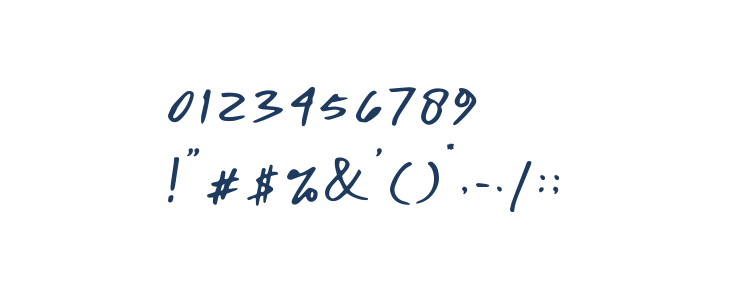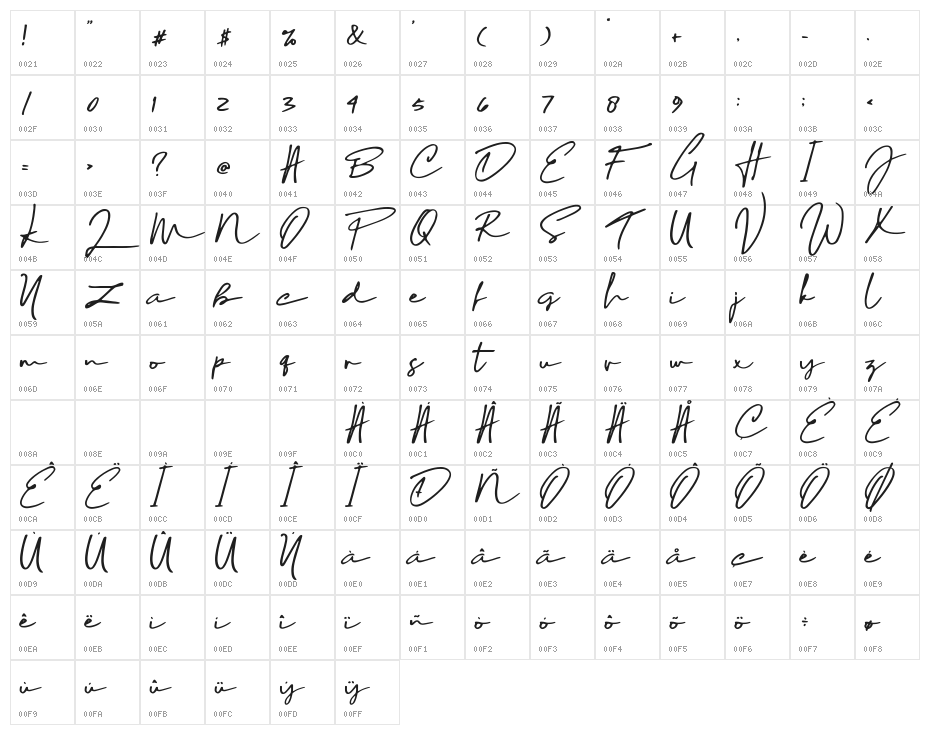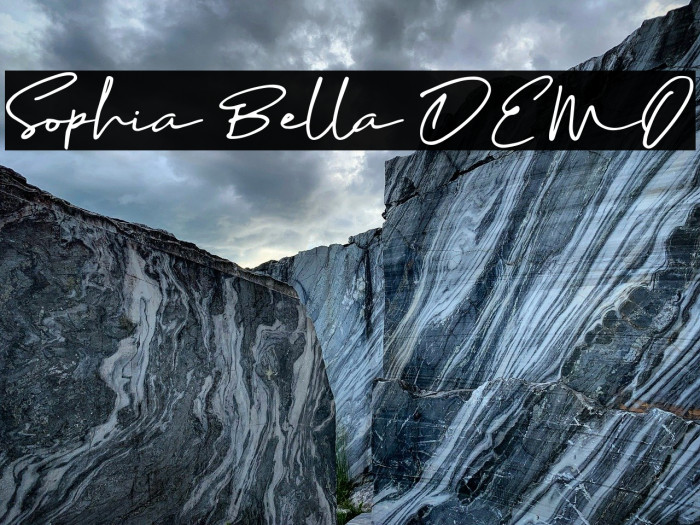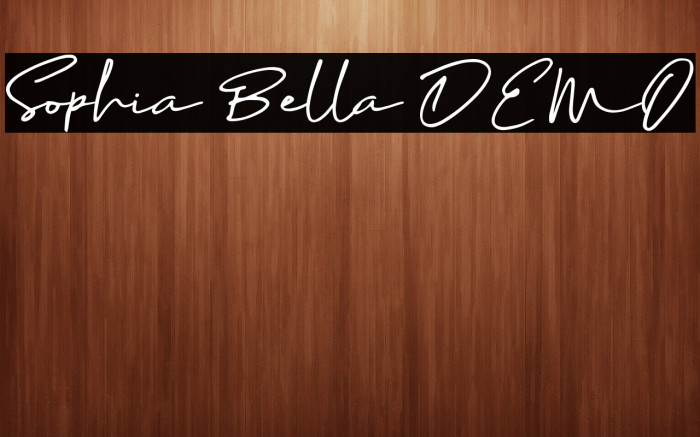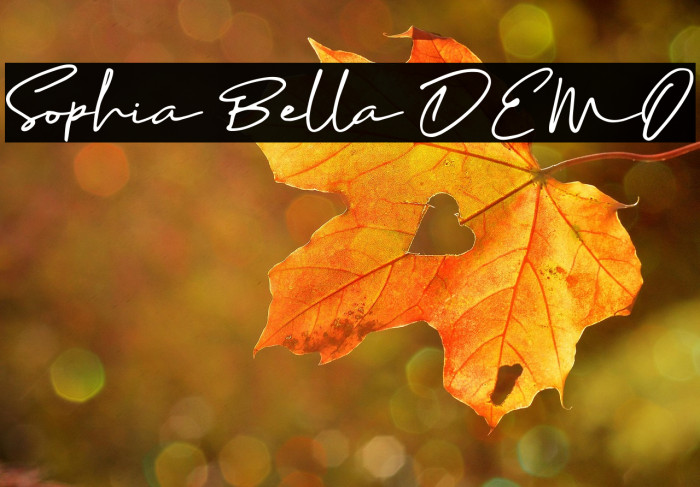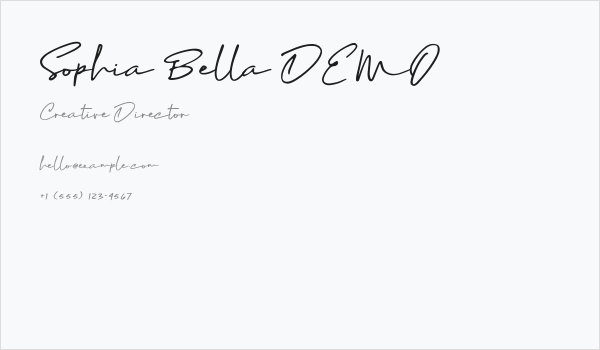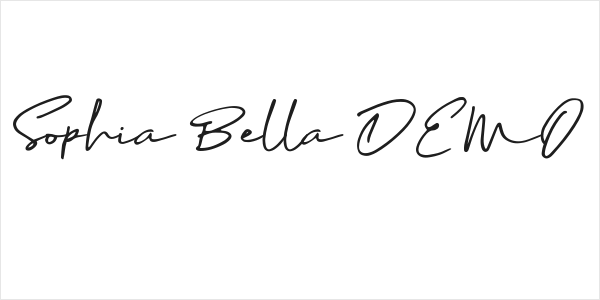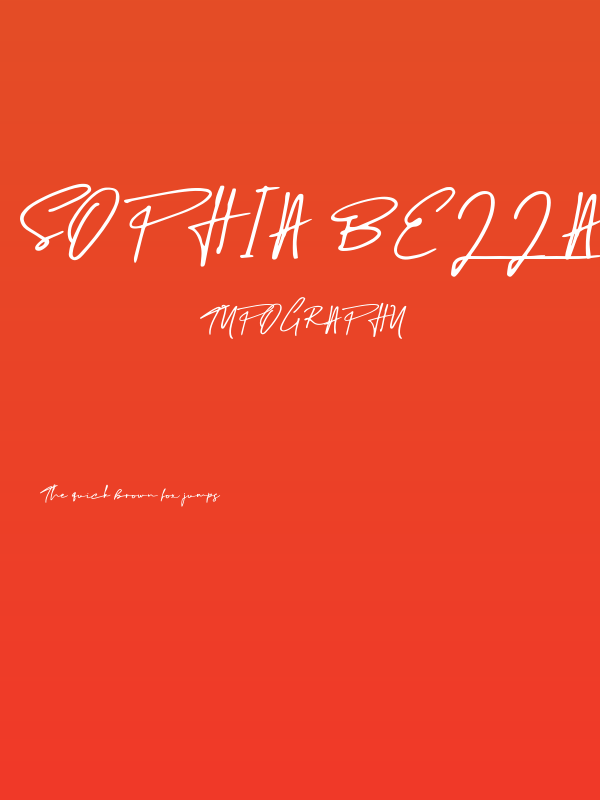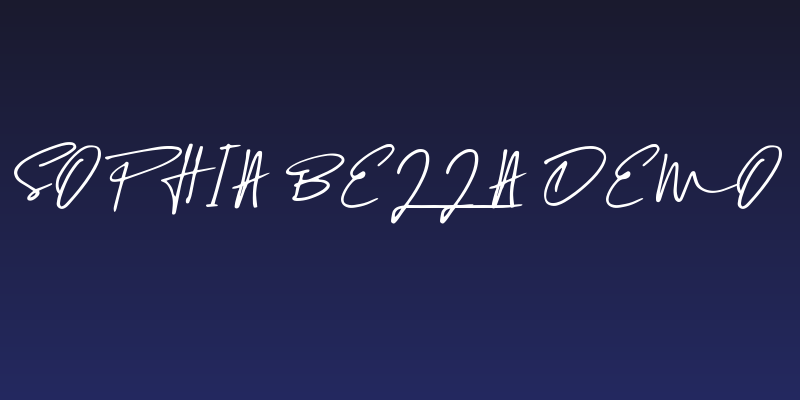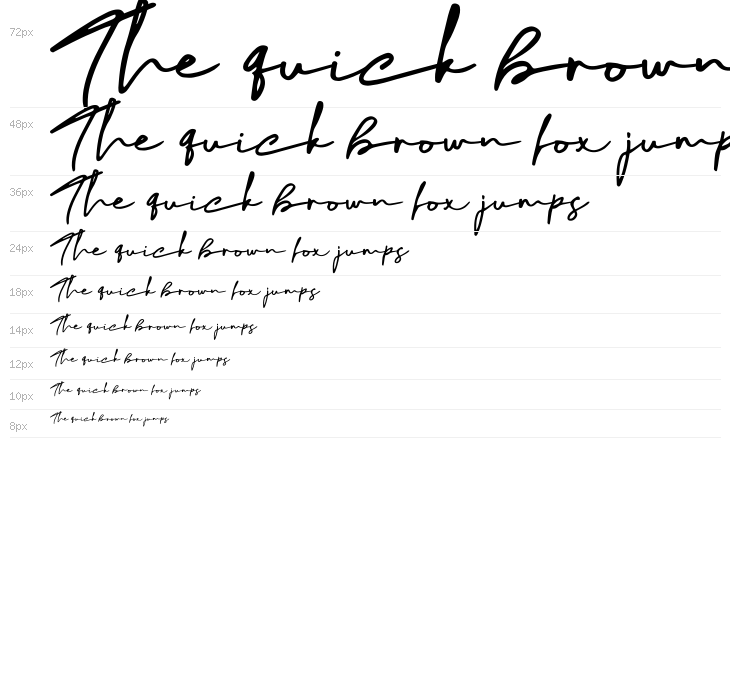
Sophia Bella DEMO Font
Sophia Bella DEMO Description
This font exhibits a flowing, handwritten style that exudes elegance and sophistication. The letters are connected in a cursive manner, giving it a seamless and fluid appearance. The uppercase letters are slightly more elaborate, with graceful loops and curves, while the lowercase letters maintain a consistent flow. The numbers are clear and maintain the same handwritten aesthetic, making them easily legible. Special characters are designed to match the overall style, ensuring a cohesive look across all text. This font is perfect for projects that require a personal touch, such as invitations, greeting cards, or branding materials.
| Overall Style | Elegant, Handwritten |
| Proposed Projects | Ideal for wedding invitations, personal branding, greeting cards, and elegant stationery. |